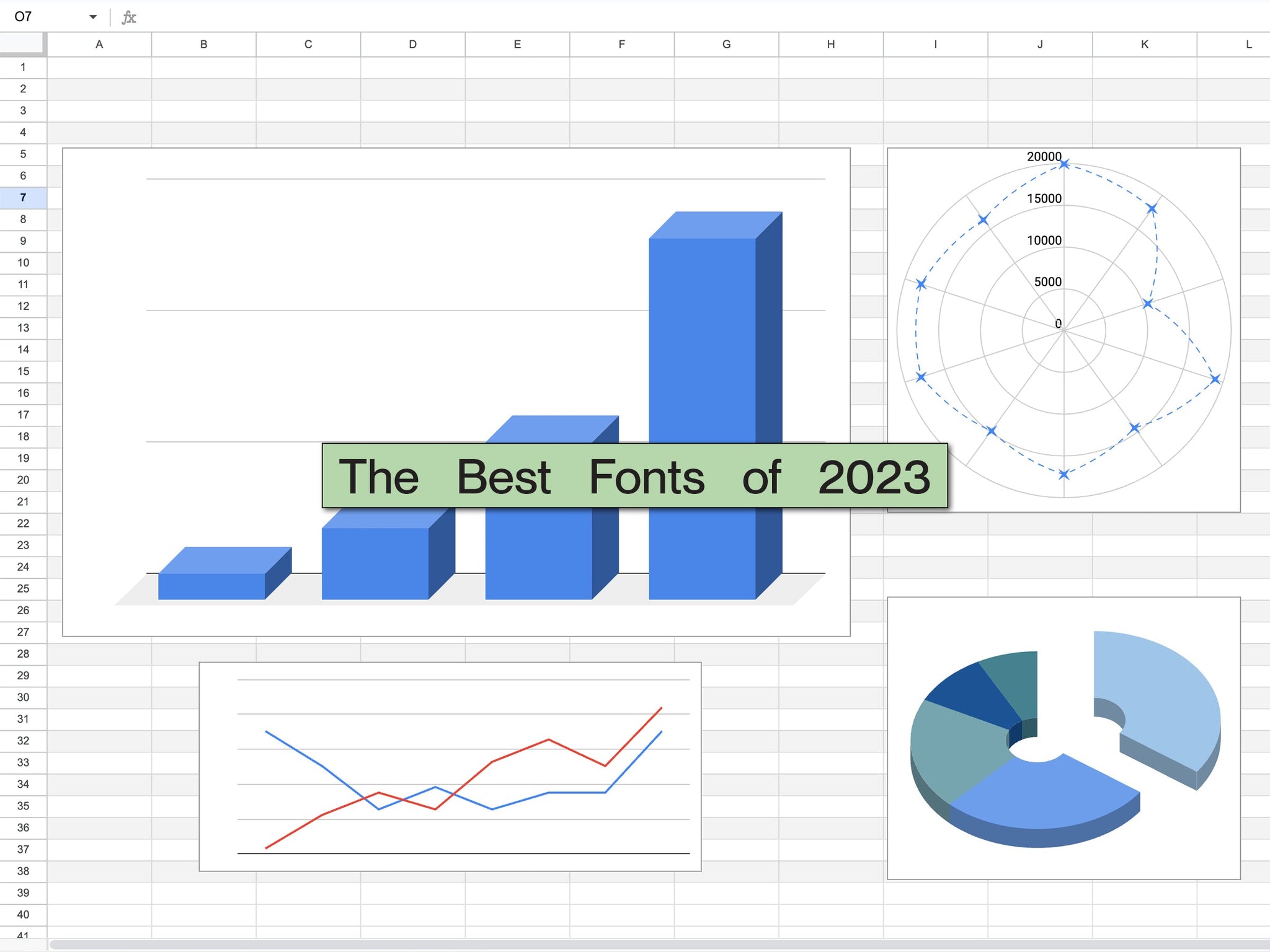
As we usher in 2024, the team at Pangram look to continue the remarkable work and creative exploration they tested, toiled over, trialled, researched, welcomed and released in the year prior.
Drawing the curtains on 2023, it’s exciting to look back on our triumphant 365 days, releasing not only a number of vibrant font families but additionally a brand-spanking-new, wonderfully weird sister type foundry Off Type, alongside Pangram Playground – our slick, product-focused space for the original and unexpected. Beyond that, the statistics speak for themselves, painting a picture of Pangram Pangram’s ever-growing, ever-connected community and network with the wider creative scene.
Together with our best-selling fonts Neue Machina, Agrandir, Monument Extended, Editorial New and Neue Montreal (also our most Googled font!), we’ve gained over 24K followers and have witnessed over 2,266,000 Minutes on our websites. That’s 37,767 Hours or 1,574 Days or 4.31 Years! Likewise, our amazing creative community has spent 17,280 Minutes watching our Instagram reels… that’s over twelve days of continuous viewing!
With many fresh fonts set free across the year, our most loved new release was our first, Editorial Old, which arrived in early 2023, embodying the evolution and creative philosophy of Pangram – one of rigour, research, restraint (and lack thereof) and unbridled expression. One that listens to our community, draws on legacy, looks towards typographic futures, and unifies this approach within meticulous, well-crafted fonts.
Looking over our top new releases, this practice is a clear thread across each and every release, apparent in each and every letterform, appreciated in each and every application.
Editorial Old
Released: March 2023
Designers: Mathieu Desjardins, Fred Wiltshire and Francesca Bolognini
In the tapestry of new releases, Editorial Old stands out as our fresh interpretation of the beloved fan-favourite, Editorial New. Rooted in the vintage ads of the ‘70s and ‘80s, Editorial Old takes us on a nostalgic journey with soft terminals, luscious ligatures, and a deliberately eroded charm across its 16 Styles and italics – ultimately encapsulating the essence of the bygone era while adding a contemporary twist.
Air Sans and Air Mono
Released: June 2023
Designers: Mat Desjardins and Caio Kondo
A harmonious collision of brutalism, minimalism, and (excitingly) aerospace design, Air and Air Mono are quite literally a breath of fresh creativity. Crafted by Mat Desjardins and Caio Kondo, these typefaces transcend the conventional, offering a visually appealing and experimental aesthetic across all 18 styles and italics. The extensive character map and diverse weights make Air a versatile choice, inviting designers to explore the uncharted territories of creativity.
Neue Montreal Mono
Released: September 2023
Designers: Mat Desjardins and Amélie Bonet
Neue Montreal Mono, an undeniable fusion of style and functionality, is an offspring of the bestseller Neue Montreal that redefines monospace fonts. Designed by Mat Desjardins and Amélie Bonet, it introduces coding ligatures and remarkable technological features like Button-mode that ultimately cement the monospace as a profoundly contemporary typeface. With a clean, effortless aesthetic, each of its 14 styles – with no less than 2339 glyphs in each, alongside multilingual support – Neue Montreal Mono offers creatives the power of endless possibility.
Pangaia
Released: October 2023
Designers: Samuel Salminen, Mat Desjardins and Francesca Bolognini
Pangaia, a collaboration between Samuel Salminen, Mat Desjardins, and Francesca Bolognini, is a testament to the seamless blend of traditional serif fonts and the raw beauty of nature. Each character in Pangaia is a meticulous creation, echoing the contours of leaves, riverbanks, and mountain slopes – poetically laced within the forms and figures of all 18 styles. From plunging swashes to powerful italic cuts, Pangaia embodies a connection and respect for our planet through typographic artistry, typographically exposing Mother Nature’s uncorrupted grandeur.
Right Grotesk Mono
Right Serif Mono
Released: December 2023
Designer: Alex Slobzheninov
Introducing playful twists and turns to the blossoming monospace space, Right Grotesk Mono – the compelling, characterful font that powerfully closed out Pangram Pangram’s year in type – from Alex Slobzheninov truly spiced up the genre. Challenging the rigidity of monospaced design with playful details and subtle surprises throughout its 14 styles and matching italics. Its friendly technological look makes it a versatile fit for various projects, reading comfortably in paragraphs and remaining recognisable in large sizes. Simply put, Right Grotesk Mono adds a touch of playfulness to the disciplined world of monospaced characters. Furthermore, if you fancied something a bit more fancy, Right Grotesk Mono was released alongside Right Serif Mono, a distinctive, striking, and studious typeface offering a unique tone that’s both refreshingly nostalgic and fearlessly contemporary.
As the clock resets and a new year beckons, Pangram stands poised at the intersection of tradition and innovation, ready to script another chapter in the fascinating narrative of type design. The journey continues, and the exploration of the creative unknown remains an enduring theme for this remarkable type foundry.
Here’s to more fonts, more creativity, and more stories told through the artistry of type 🍻